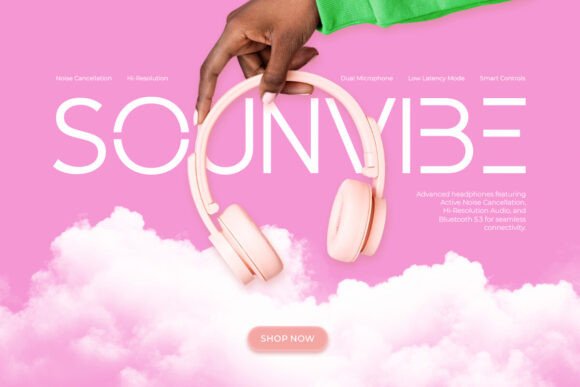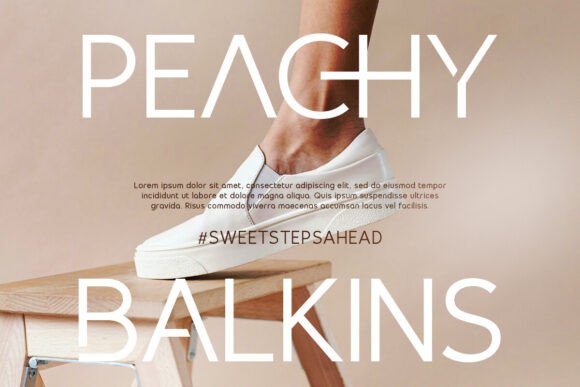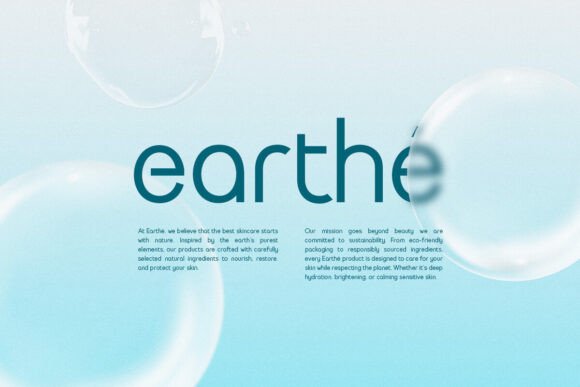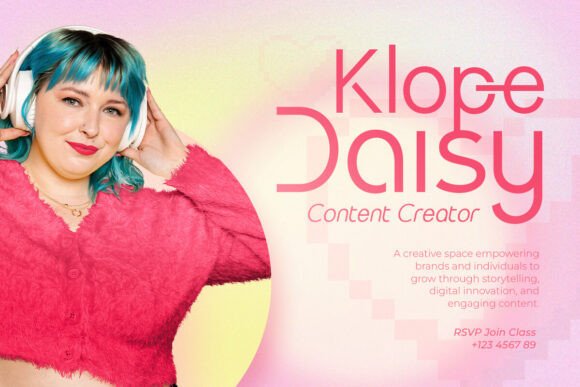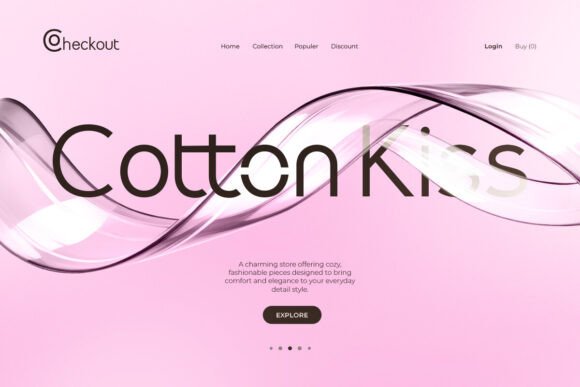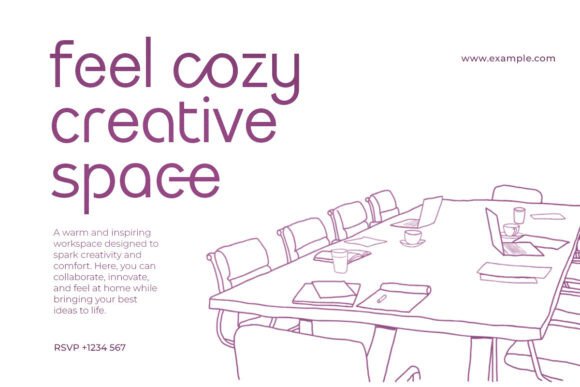
Introduction to Realmuse Font
As a designer, there’s nothing quite like the thrill of creating something from scratch. It’s that moment when you finally find the perfect font to bring your vision to life, and everything falls into place. For me, that moment came when I stumbled upon the Realmuse Font – a quirky, sans-serif masterpiece that’s been a game-changer for my creative projects.
With its unique rounded look and minimalist style, Realmuse Font is the perfect addition to any design. Not only does it make your logo or branding look stunning and modern, but it also comes with stylish ligatures and stencil alternates that add an extra touch of sophistication. Plus, its high-quality design and transparent background make it a valuable resource for designers looking to elevate their work.
Whether you’re working on a free download project or a paid client, Realmuse Font is a valuable asset that’s sure to impress. Its multilingual support makes it a versatile design resource that can be used across various creative projects, from branding and logos to digital designs and more.
Key Features of Realmuse Font
- Realistic and detailed design elements for adding depth to creative projects
- Supports a wide range of languages and characters for international use
- Perfect for graphic designers, artists, and anyone looking for a unique design element
Honest Review: Realmuse Font
I recently had the chance to work with the Realmuse Font, and I must say it’s a great addition to my design arsenal. This font is perfect for any creative project that requires a unique touch.
One of the things I love about the Realmuse Font is its high quality design. The font is crisp and clear, making it perfect for both digital and print projects. I also appreciate the transparent background, which allows me to easily integrate it into my designs.
Here are some of the things that work well with the Realmuse Font:
- ✨ High quality design that’s perfect for digital and print projects
- ⚠️ Limited font styles available, which may not be ideal for designers who need a lot of variation
- ⚠️ Some characters may not be fully compatible with certain software
Overall, I’m impressed with the Realmuse Font. It’s a great design resource that’s perfect for any creative project. While it may have some limitations, the benefits far outweigh the drawbacks.
Tips for Getting the Most Out of Realmuse Font
Experiment with different font sizes, colors, and styles to create unique and eye-catching designs. Use the font in conjunction with other design resources, such as graphics and images, to add depth and visual interest to your project.
Realmuse Font is ideal for various creative projects, including social media graphics, presentations, and marketing materials. Its high-quality design and transparent background make it a versatile resource for designers and non-designers alike.